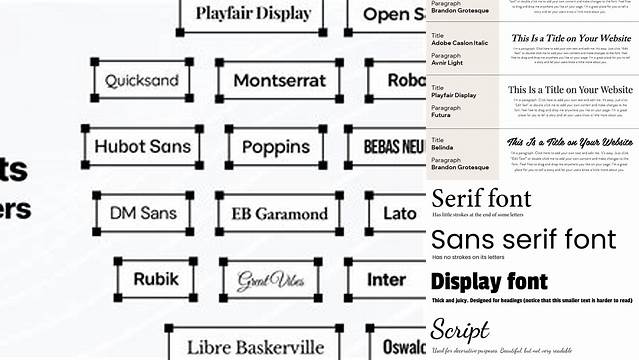
Best Web Fonts: Top Choices & How To Use Them (2024)
Choosing the right fonts for your website is a crucial aspect of web design. Fonts play a significant role in how your content is perceived, affecting readability, user experience, and overall brand identity. The best web fonts not only make your website visually appealing but also ensure that your message is conveyed effectively. In this article, we’ll dive deep into the world of web fonts, exploring various options and providing guidance on selecting the perfect fonts for your site. We'll look at the key considerations, from legibility and readability to performance and licensing, to help you make informed decisions. Whether you're a designer, developer, or website owner, understanding the nuances of font selection will empower you to create a compelling and user-friendly online presence. Let's get started and uncover the secrets to choosing fonts that elevate your website's design and functionality. By the end of this guide, you’ll have a clearer understanding of what makes a font great for web use and how to implement it effectively.
Understanding the Importance of Web Fonts
Web fonts are more than just decorative elements; they are integral to the user experience and the overall success of your website. Let's explore why choosing the right fonts is so important. First and foremost, readability is paramount. If your website’s text is difficult to read, visitors are likely to leave. A well-chosen font ensures that your content is easily digestible, keeping users engaged and on your site longer. This is especially crucial for websites with a lot of text, such as blogs, news sites, and educational platforms. Think about it – would you spend time on a site where you have to strain your eyes to read the text? Probably not. Good readability enhances the user experience, making it more enjoyable and efficient for visitors to consume your content.
Beyond readability, fonts play a critical role in establishing your brand identity. The fonts you use reflect your brand's personality and values. A modern, sans-serif font might convey a sense of innovation and simplicity, while a classic serif font could evoke tradition and authority. For instance, a tech startup might opt for a sleek, minimalist font like Open Sans or Roboto, while a luxury brand might choose a more elegant and refined font like Playfair Display or Lora. Consistency in font usage across your website and other marketing materials helps build brand recognition and reinforces your brand's message. Imagine if Coca-Cola suddenly changed its iconic script font – it would be jarring and could dilute their brand identity. Your website's fonts should be just as carefully considered.
Moreover, the right fonts can significantly impact the visual hierarchy and layout of your website. Font size, weight, and style can be used to guide the reader’s eye, highlighting important information and creating a clear structure. Headings, subheadings, and body text should work together harmoniously to create a visually appealing and organized page. Using different fonts for headings and body text can create contrast and improve scannability. For example, a bold, attention-grabbing font for headings paired with a clean, readable font for the body text can make your content more accessible and engaging. Think of it as creating a visual roadmap for your readers, helping them navigate through your content effortlessly. In conclusion, the importance of web fonts cannot be overstated. They influence readability, brand identity, visual hierarchy, and overall user experience. Investing time in selecting the right fonts is an investment in the success of your website.
Top Web Font Choices for 2024
In 2024, the landscape of web fonts continues to evolve, with new trends and classic choices vying for attention. Selecting the right fonts can make or break your website’s design, so let’s dive into some of the top contenders this year. Firstly, sans-serif fonts remain a popular choice due to their clean, modern aesthetic and excellent readability on screens. Fonts like Roboto, Open Sans, and Lato are go-to options for many designers and developers. Roboto, for example, is a versatile font family that works well in a variety of contexts, from body text to headings. Its geometric design and wide range of weights make it a reliable choice for projects requiring a modern touch. Open Sans is another widely used sans-serif font known for its neutral yet friendly appearance, making it suitable for a broad range of websites. Lato, with its semi-rounded details, offers a slightly warmer feel while maintaining excellent legibility.
Moving on to serif fonts, these classic typefaces bring a touch of elegance and sophistication to web design. Fonts like Playfair Display, Merriweather, and Lora are excellent choices for headings and body text alike. Playfair Display, with its high contrast and graceful lines, is perfect for creating a striking impression in headings and titles. Merriweather, designed specifically for on-screen reading, offers a comfortable and readable experience for longer texts. Lora, a well-balanced serif font, combines beauty and readability, making it a versatile option for both headings and body text. When used thoughtfully, serif fonts can add a touch of timeless appeal to your website, enhancing its overall aesthetic.
Beyond the standard sans-serif and serif options, display fonts are gaining traction for adding personality and uniqueness to websites. These fonts are designed to be eye-catching and are best used for headings and titles rather than body text. Examples include Montserrat, Raleway, and Bebas Neue. Montserrat, with its geometric forms and multiple weights, provides a modern and stylish look. Raleway, another popular display font, offers a sleek and elegant appearance, making it ideal for headings and logos. Bebas Neue, a clean and condensed sans-serif font, is perfect for creating impactful headlines. While display fonts can add character to your site, it’s important to use them sparingly and pair them with a more readable font for body text. Remember, the key is to strike a balance between visual appeal and readability. By exploring these top web font choices for 2024, you can find the perfect typography to elevate your website’s design and engage your audience effectively. The right fonts can truly transform your site from ordinary to extraordinary.
Factors to Consider When Choosing Fonts
Choosing the right fonts for your website involves more than just picking what looks good. Several factors play a crucial role in ensuring your fonts enhance readability, user experience, and overall site performance. Let's delve into these key considerations. First and foremost, readability is paramount. A font might look stylish, but if it's difficult to read, it's not the right choice for your website. Consider the font's letter spacing, x-height (the height of lowercase letters), and overall clarity. Fonts with generous spacing and a comfortable x-height are generally easier to read, especially for longer blocks of text. Test your chosen fonts on different screen sizes and devices to ensure they remain legible. Imagine trying to read a paragraph of text in a font that's too thin or too stylized – it can be a frustrating experience for your visitors, leading them to abandon your site.
Font pairing is another essential factor. Combining different fonts can create visual interest and hierarchy, but it's crucial to do it thoughtfully. A general rule of thumb is to pair a serif font with a sans-serif font, as the contrast can create a balanced and visually appealing look. For example, pairing a classic serif font like Merriweather for headings with a clean sans-serif font like Open Sans for body text can create a harmonious and readable design. Avoid pairing fonts that are too similar, as this can look unintentional and lack contrast. Also, limit the number of fonts you use on your website – typically, two to three fonts are sufficient to create a cohesive design without overwhelming the reader. Think of it as creating a visual symphony, where each font plays its part in harmony with the others.
Website performance is also a critical consideration. Web fonts are loaded as external resources, and using too many fonts or large font files can slow down your website's loading time. Slow loading times can negatively impact user experience and SEO rankings. To mitigate this, choose web-optimized fonts and consider using font subsets or variable fonts. Font subsets include only the characters and styles you need, reducing the file size. Variable fonts allow you to adjust font properties like weight and width within a single file, further optimizing performance. Additionally, using a Content Delivery Network (CDN) to host your fonts can improve loading speeds by serving them from servers closer to your users. Remember, a fast-loading website is crucial for keeping visitors engaged and ensuring a positive user experience. By carefully considering readability, font pairing, and website performance, you can select fonts that not only look great but also contribute to the overall success of your website.
Optimize font loading to ensure your website loads quickly. Web fonts are external resources, and large font files can slow down your site's performance. To mitigate this, use optimized font formats like WOFF2, which offers better compression and browser support. Consider using font subsets to include only the characters and styles you need, reducing the file size. Additionally, using a Content Delivery Network (CDN) to host your fonts can improve loading speeds by serving them from servers closer to your users. Font loading strategies, such as using font-display in your CSS, can also help improve perceived performance by controlling how fonts are rendered while they are loading. Remember, a fast-loading website is essential for a positive user experience and SEO rankings. By prioritizing readability, limiting font usage, and optimizing font loading, you can create a website that not only looks great but also performs well. These best practices will help you make the most of your web font choices and deliver a seamless experience to your visitors. Happy font hunting, guys!